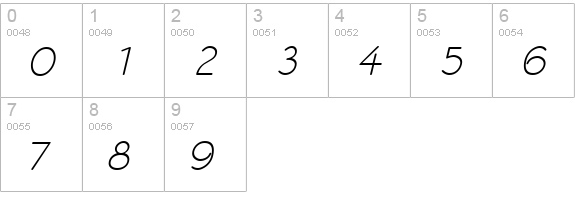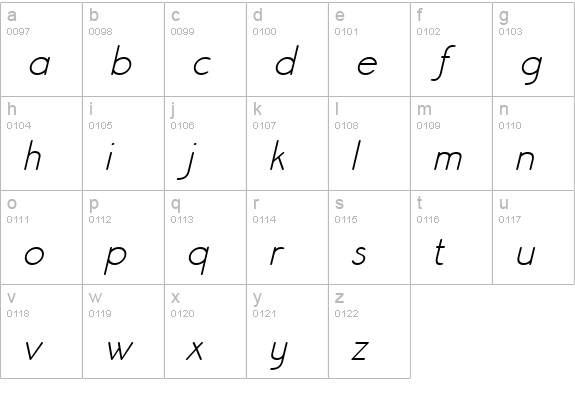
Register Sans BTN Oblique Font Details
Register Sans BTN Oblique is a distinctive, italic variant in the Register typeface family \xE2\x80\x94 well suited to design and typography projects.
Register Sans BTN Oblique is a versatile and stylish font that adds a touch of elegance and sophistication to any design project. With its clean lines and slanted italic style, this font exudes a sense of modernity and professionalism. Whether you are creating a logo, designing a website, or crafting an eye-catching advertisement, Register Sans BTN Oblique is the perfect choice to make your text stand out. This font offers a wide range of glyphs and characters, allowing for seamless integration into various languages and typographic needs. Its sleek and contemporary design makes it suitable for both print and digital applications. From headlines to body text, Register Sans BTN Oblique provides excellent legibility and readability, ensuring that your message is conveyed with clarity and impact. One of the best features of Register Sans BTN Oblique is that it is freely available to download at FontsMarket.com. This means that you can access this high-quality font without any cost or restrictions. Whether you are a professional designer or an aspiring creative, having access to a versatile and stylish font like Register Sans BTN Oblique can greatly enhance your design projects. So why wait? Take advantage of this amazing opportunity and download Register Sans BTN Oblique today. Elevate your designs and captivate your audience with this elegant and freely available font.